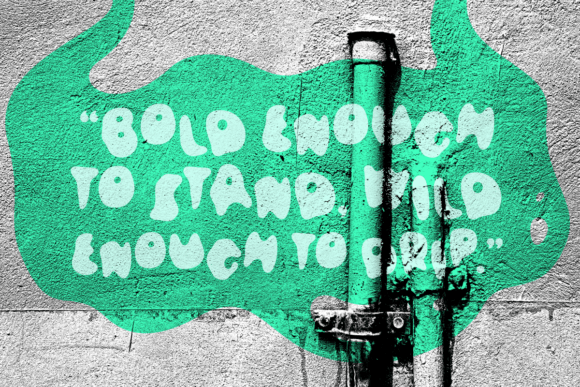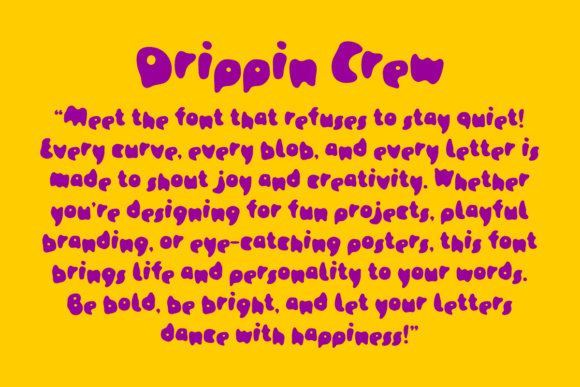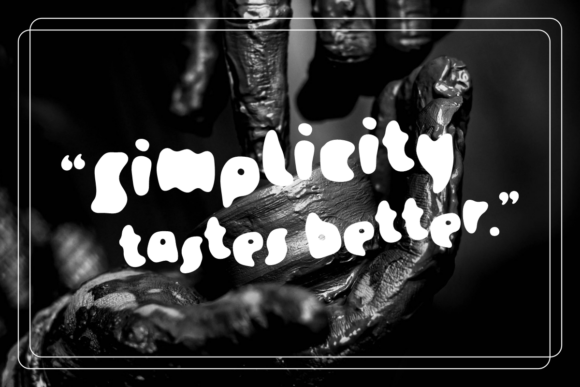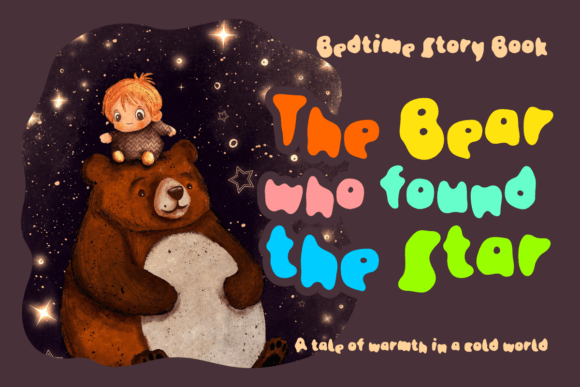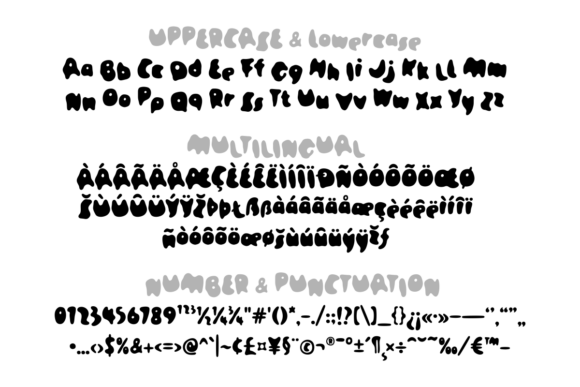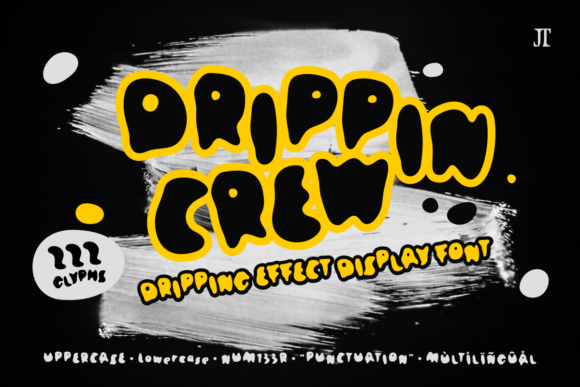
Drippin Crew Font: Unleash Your Creativity with a Bold and Energetic Display Font
Are you tired of using the same old fonts that fail to make a statement? Look no further than Drippin Crew, a bold and energetic display font that’s inspired by street art, graffiti, and pop culture. With its unique dripping effect, this font adds attitude and movement to your design, making it perfect for those who want their message to stand out and shout.
The Inspiration Behind Drippin Crew
Drippin Crew is more than just a font – it’s a statement. Inspired by the urban landscape and the world of street art, this font combines bold letterforms with natural dripping details, giving each character a raw, hand-painted feel. The result is a font that looks dynamic and alive, perfect for designs that need power and personality.
Key Features of Drippin Crew
- Unique Dripping Style: The dripping effect in Drippin Crew is what sets it apart from other fonts. It’s perfect for creating high-impact visuals that grab attention and leave a lasting impression.
- Bold and Energetic: Drippin Crew is designed to make a statement. Its bold letterforms and energetic vibe make it perfect for designs that need to stand out.
- Perfect for a Variety of Design Projects: From logos and headlines to apparel and album covers, Drippin Crew is versatile and can be used for a wide range of design projects.
Who Can Benefit from Using Drippin Crew?
Drippin Crew is perfect for a variety of designers and crafters, including:
- Graphic Designers: If you’re looking for a font that will make your designs stand out, Drippin Crew is a great choice.
- Streetwear Brands: Drippin Crew’s urban, edgy vibe makes it perfect for streetwear brands looking to create bold and eye-catching designs.
- Poster Artists: Whether you’re creating posters for a concert, movie, or event, Drippin Crew is a great choice for adding a bold and energetic touch.
- YouTube Creators: If you’re looking for a font that will help your YouTube videos stand out, Drippin Crew is a great option.
How to Use Drippin Crew in Your Designs
Using Drippin Crew in your designs is easy. Here are a few tips to get you started:
- Pair it with a Simple Background: Drippin Crew works best when paired with a simple background. This will help the font stand out and make a bold statement.
- Experiment with Different Colors: Drippin Crew looks great in a variety of colors. Experiment with different colors to find the one that works best for your design.
- Use it for Headlines and Titles: Drippin Crew is perfect for headlines and titles. Use it to add a bold and energetic touch to your designs.